Futuristic and high-tech design projects demand visionary typography that reflects innovation and cutting-edge styles. That’s why leveraging the best techno fonts will capture the essence of the future, whether for modern tech branding or sci-fi designs. So, let’s find out what futuristic fonts you could use here!
21 Best Techno Fonts for Futuristic Designs
Cyberpunk design would be a great match to fonts with modern and daring design. Therefore, these techno-inspired fonts will provoke you to revolutionize your design.
1. Sonic Surge
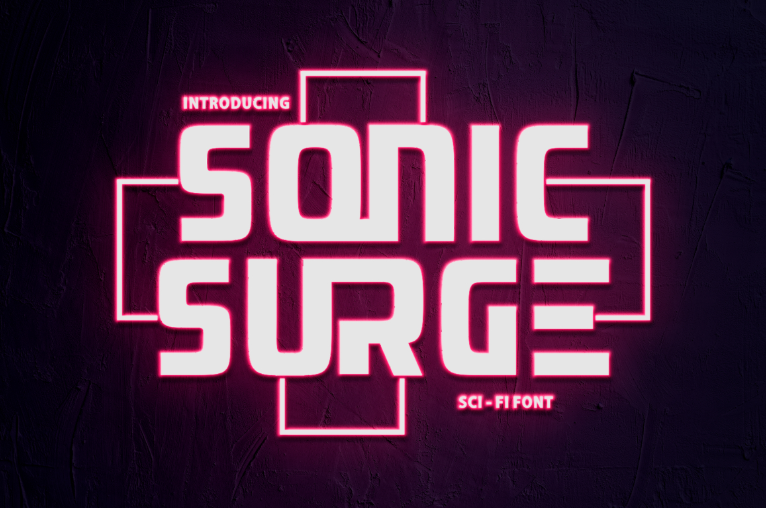
Sonic Surge is a strong and modern font that captivates attention. With its clean and minimalistic style, this font is suitable for futuristic-theme design. Besides, its robust style is perfect for impactful titles or headings.
2. Snapshock
Snapshock arises with distinguished shapes. Its uniqueness evokes a sense of technological innovation. This font offers five variations, so you can easily embrace your favorite techno-inspired theme.
3. Bold Brick
Bold Brick will bring you to the cyberworld. This heavy-weight font has a simple yet powerful style for modern designs. Moreover, there are more variants to give you more options for your futuristic projects.
4. Nebula Avenue
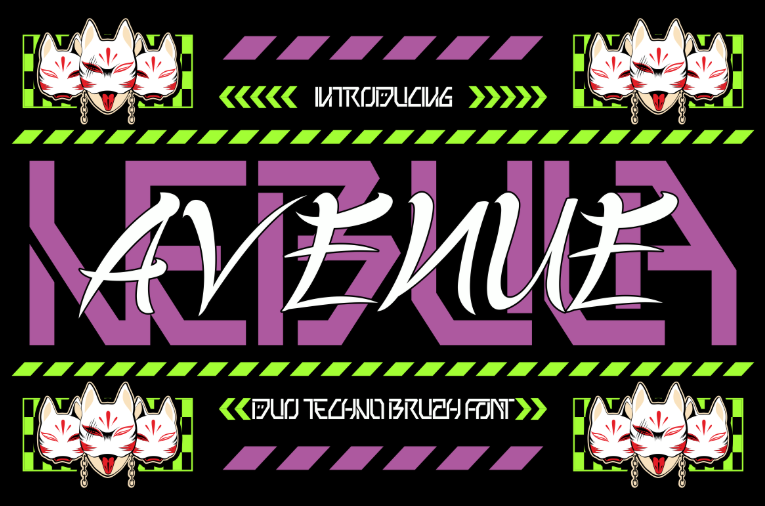
Imagine combining a techno-inspired font with a Japanese-style font. Nebula Avenue is one of the cool techno fonts that give you an unusual Japanese retro-futuristic style.
5. Planet Adventure
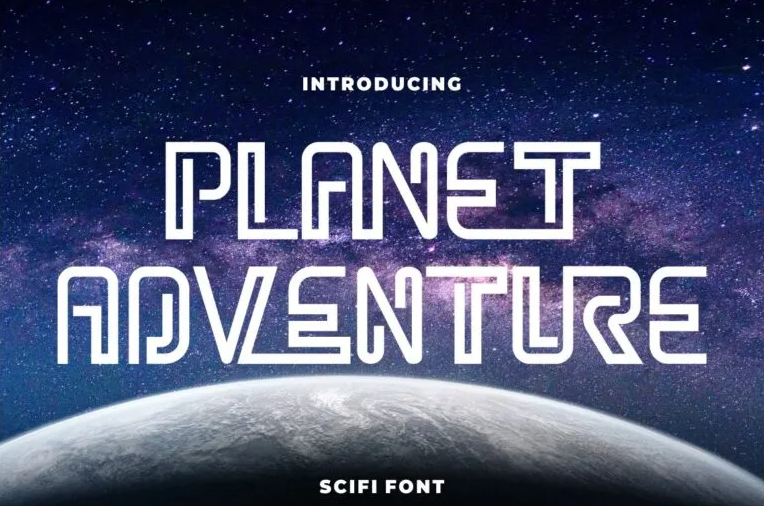
Planet Adventure has a sharp and cutting-edge look for your space-age design projects. It perfectly matches high-tech interfaces, web designs, or game developments.
6. Sparkster
Sleek and fluid design. Sparkter is a fun font that enhances your projects like a techno-utopia.
7. Super Ultra Supra
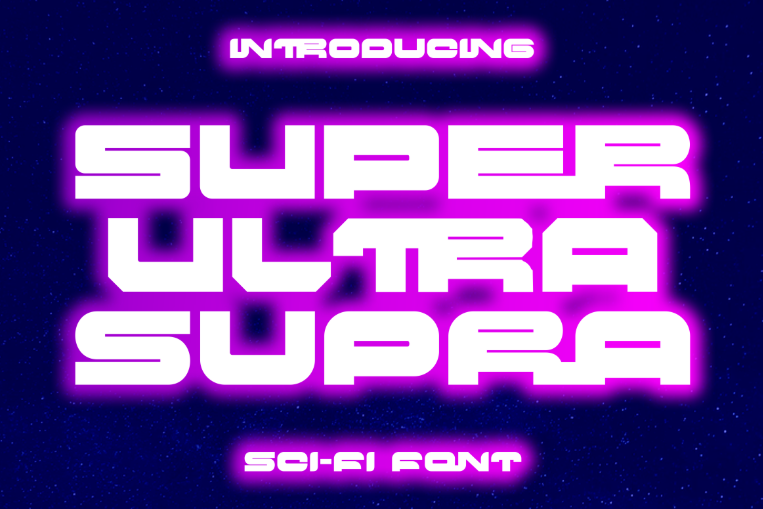
Need a noticeable font for your heading? With its bold and striking design, the Super Ultra Supra will magnetize your audience’s attention.
8. Vibe Tribe
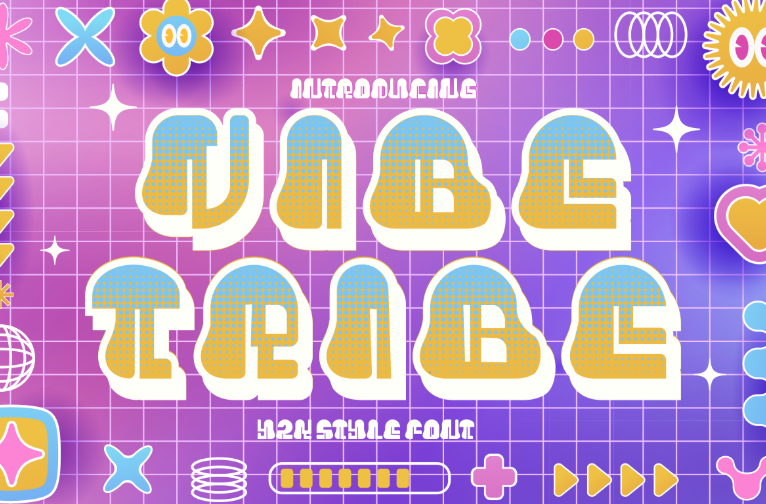
Vibe Tribe is one of the best techno fonts that bring you back to the 2000s. Its cute and techogeek style will make you have fun with this Y2K font.
9. Turbo Type
Want something that sporty and tech-savvy? Turbo Type will give you both. Additionally, this font also has extra variants to improve your design.
10. Cyber Crown
With its solid shapes and robotic look, Cyber Crown can evoke a sense of futurism in your design.
11. Techno Wave
Another Y2K font. Techno Wave adopts a pixelated style to make the design look geek and fun. It will look good for tech-driven projects, like film titles, websites, craft designs, or even video games.
12. Spectra Volt
Spectra Volt has an intricate design that evokes a high-energy sci-fi aesthetic. Thus, this font can be a good choice for sci-fi-themed projects, like web design, tech branding, and packaging design.
13. Neonbox
One of the modern techno fonts available, Neonbox combines a stunning look of neon style and edgy display. As a result, you get a strikingly gorgeous text with a bold and vibrant design.
14. Technoboard
With its solid and robust letterform, Technoboard is a strong display font. Moreover, its circuit board-like design and electronic influence make it ideal for retro video games, vintage sci-fi posters, and other projects with a cyberpunk twist.
15. Pixel Bit
Pixel Bit is a bold, minimalist font with a subtle sci-fi feel. The font has a clean, blocky structure, so it’s perfect for high-tech branding or UI design with futuristic aesthetics.
16. Circuitra
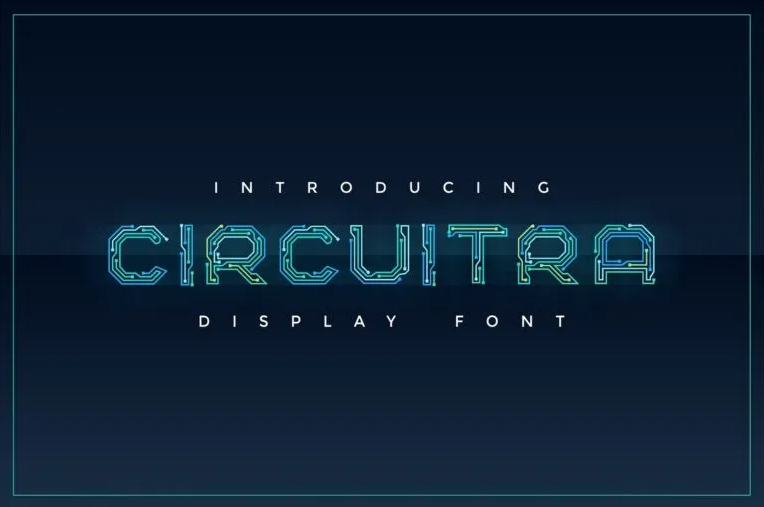
Circuitra brings an intricate and digitalized look to your designs. Its sharp and circuit-like lines make it one of the best techno fonts for projects that demand a modern, high-tech atmosphere.
17. Net World
Another extraordinary display font. Net World has a unique design like connected networks. Hence, it’s a great font if you love to be different in your techno-themed design projects.
18. Neuro Hack
Neuro Hack is a highly elaborate and stylized font. The design is complex and spectacular like how the future can be. Therefore, the font will be a perfect choice to capture the spirit of the cyberpunk realm.
19. Digitechno
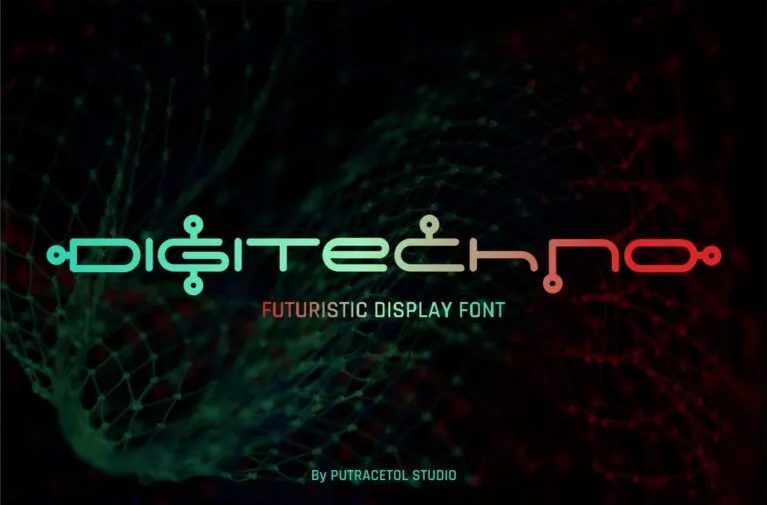
Digitechno’s elegant and sophisticated design evokes a sense of classical and modernity in your projects. Its digital yet soft appearance is perfect for cyberpunk themes that want to balance high-tech elements with an extravagant taste.
20. Nitro Nova
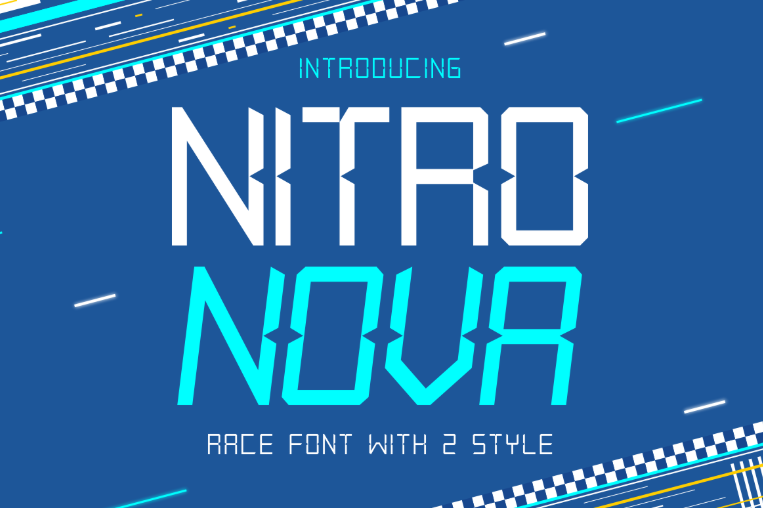
Nitro Nova brings the feeling of sports and high technology. The letterform is simple but pleasurable to look at. Moreover, it’s readable and suitable to attract people’s attention.
21. Space Sparkle
Space Sparke embodies the rebellious side of the cyberpunk genre. It gives techno vibes combined with a retro-futuristic outlook. This font offers several variants to boost your techno-themed projects. You can use it for headings, logos, branding, and merchandise designs.